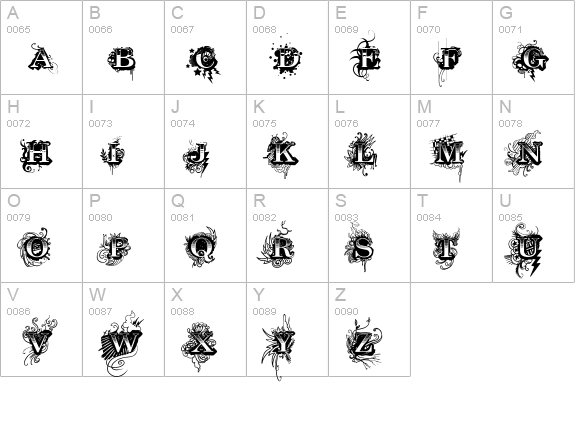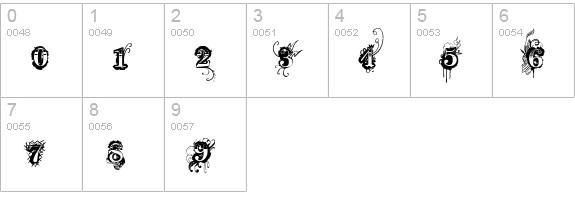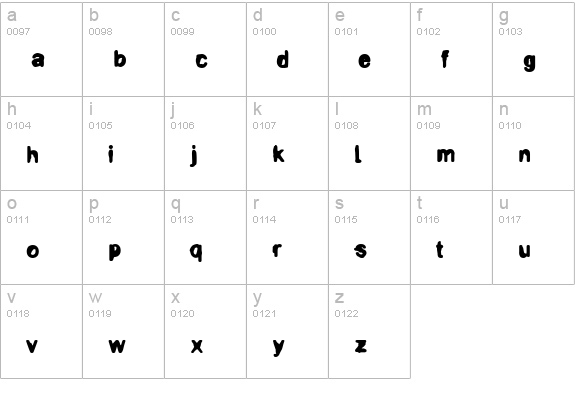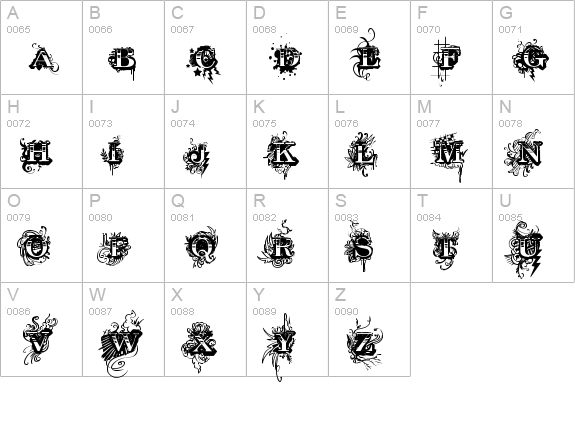
Vtks Revolt font is a stunning display typeface that exudes rebellion and edginess. With its bold and daring letterforms, this font is perfect for making a powerful statement in your designs. Its unique style and unconventional shapes make it stand out from the crowd, capturing attention and demanding to be noticed. The rebellious spirit of Vtks Revolt font is reflected in its jagged edges and distressed look, giving it a raw and untamed aesthetic. Each letter is carefully crafted to convey a sense of defiance and nonconformity, making it an ideal choice for projects that require a touch of rebellion. What sets Vtks Revolt font apart is not only its striking design but also its availability. This font is freely available to download at FontsMarket.com, allowing designers and creatives to unleash their rebellious creativity without any limitations. Whether you're working on a poster, logo, or any other design project, Vtks Revolt font will help you make a bold and impactful statement. With its wide range of glyphs and characters, this font offers versatility and flexibility, making it suitable for various design styles and themes. It can be used for both personal and commercial projects, giving you the freedom to express your rebellious nature without any restrictions. So if you're looking for a font that breaks the mold and adds a touch of rebellion to your designs, look no further than Vtks Revolt. Download it for free at FontsMarket.com and let your creativity run wild. Embrace the spirit of defiance and make a statement that refuses to be ignored.